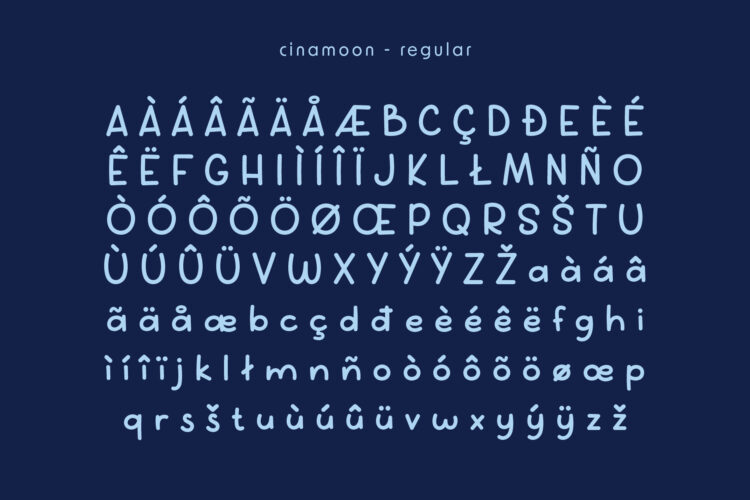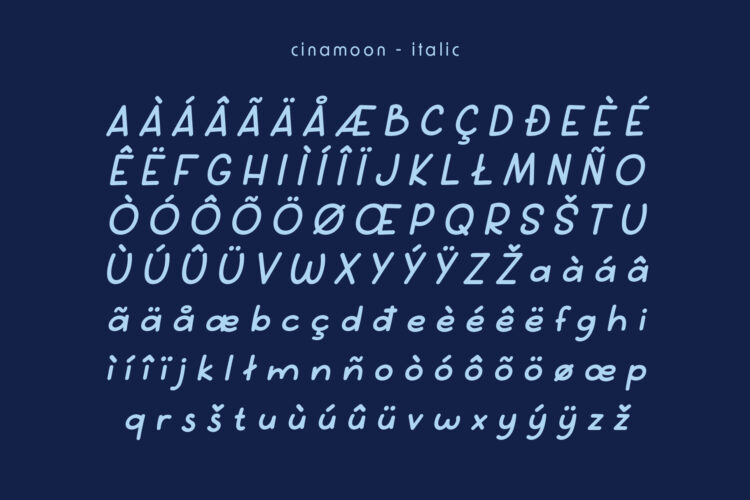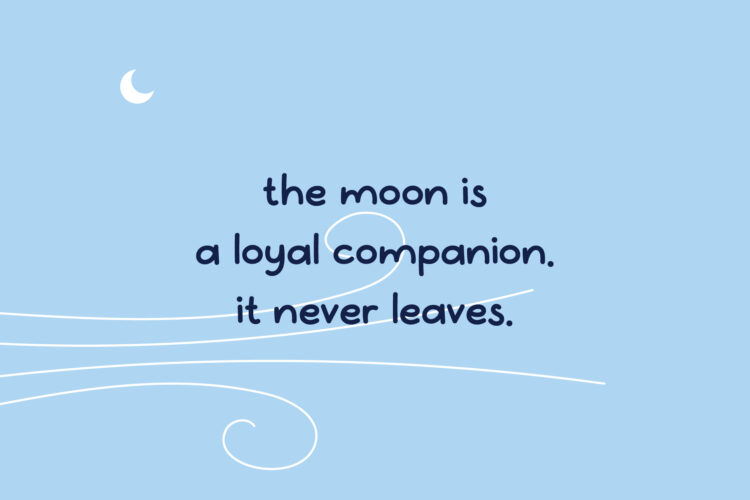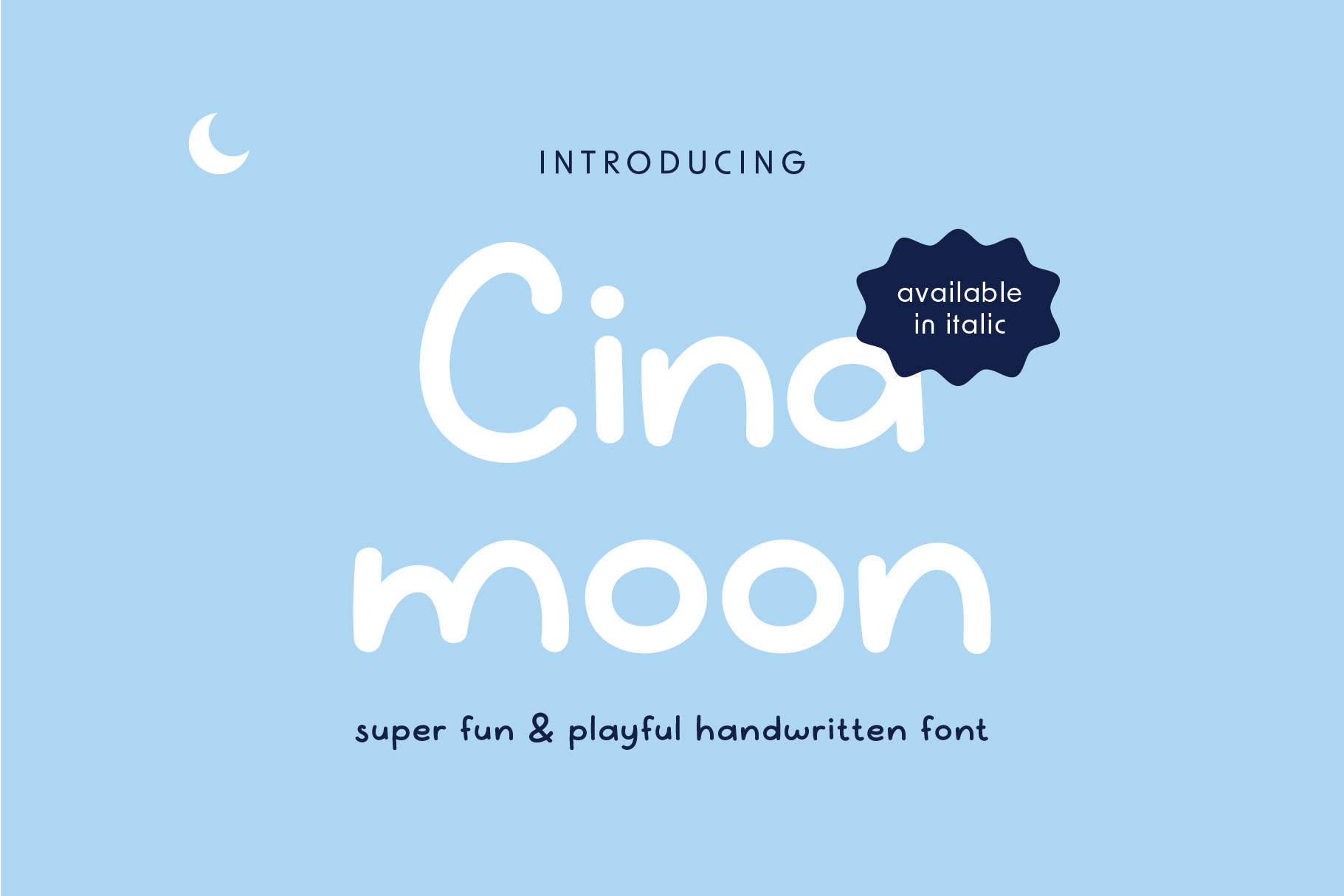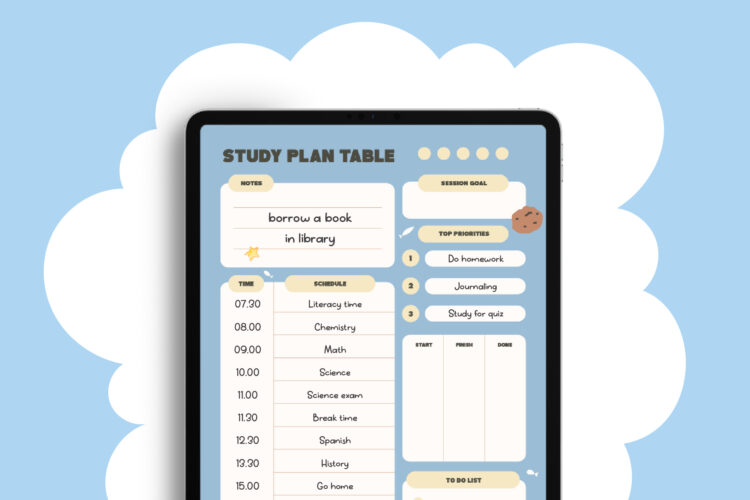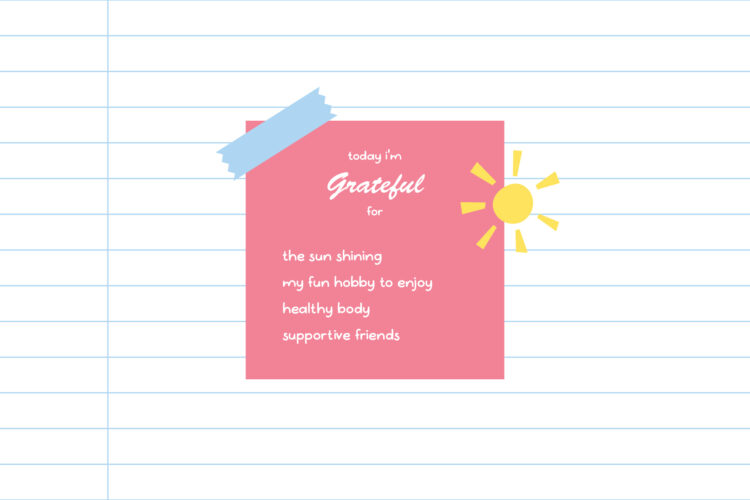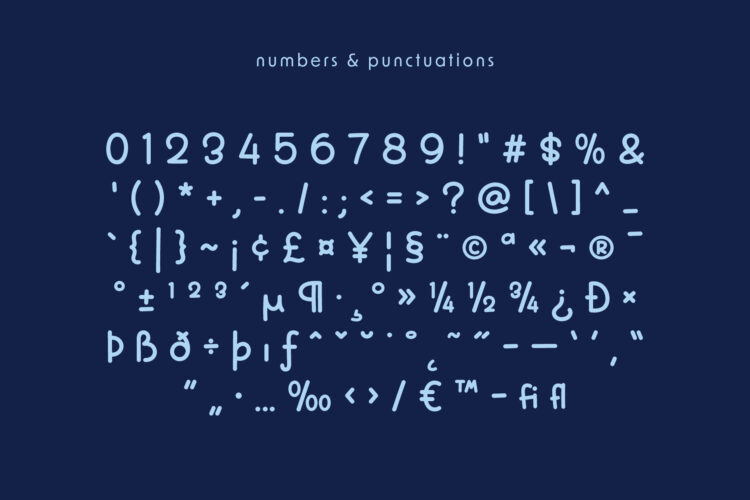
Cinamoon - Regular
Cinamoon - Italic
Introducing Cinamoon – a fun and friendly handcrafted font made with love. Its cute, playful style makes it perfect for children’s products.
Whether you’re designing for toys, storybooks, clothes, or party invitations, Cinamoon adds a joyful touch. It brings warmth and personality to every project.
This font includes uppercase and lowercase letters, numbers, and standard symbols. Everything you need to create a complete and charming design.
Let Cinamoon brighten your creative work. It’s the perfect choice for anyone who wants their designs to feel playful and full of character!
Cinamoon – Handwritten Font